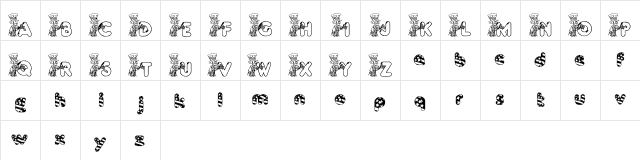
KG UNCLE SAM Regular Font Preview
KG UNCLE SAM Regular
KG UNCLE SAM Regular Font Details
Design Context for KG UNCLE SAM Typeface
KG UNCLE SAM is a composed and adaptable typeface that performs quietly and consistently across a wide range of design contexts.